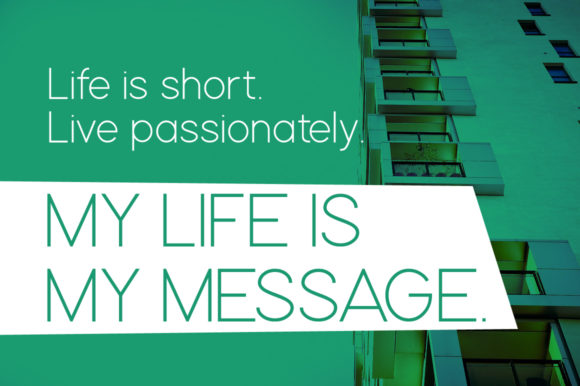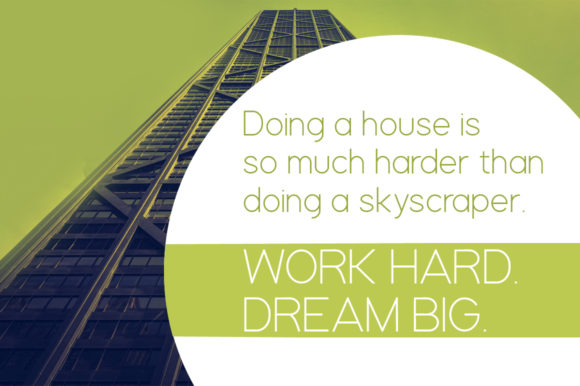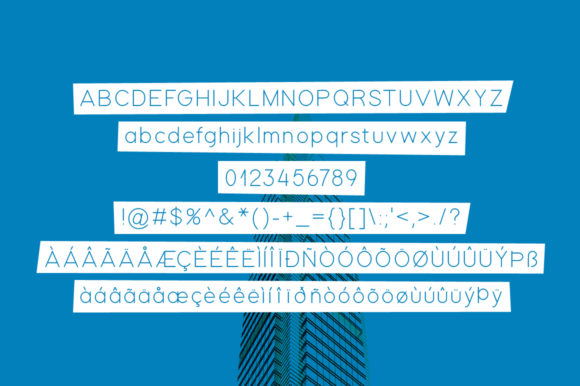
Dreamy Eyes Font: The Ultimate Modern Font for Creative Designs
Are you a designer or crafter looking for a font that can elevate your creative projects to the next level? Look no further than the Dreamy Eyes Font, a brand new modern font that’s perfect for a wide range of applications. In this article, we’ll explore the features and benefits of the Dreamy Eyes Font, and show you how it can be used to create stunning designs.
What is Dreamy Eyes Font?
The Dreamy Eyes Font is a modern font that’s designed to be versatile and easy to use. It’s a brand new font, carefully crafted to meet the needs of designers and crafters who want to create unique and eye-catching designs. With its clean lines, elegant curves, and sophisticated style, the Dreamy Eyes Font is perfect for anyone who wants to add a touch of modernity to their designs.
What Can I Use Dreamy Eyes Font For?
The Dreamy Eyes Font is suitable for a wide range of creative projects, including:
- T-shirts: Create stunning t-shirt designs with the Dreamy Eyes Font that will make your customers stand out.
- Print designs: Use the font for brochures, business cards, and other print materials that require a modern and elegant look.
- Website headers: Add a touch of sophistication to your website headers with the Dreamy Eyes Font.
- Photo frames: Create beautiful photo frames with the Dreamy Eyes Font that will make your memories stand out.
- Flyers: Design eye-catching flyers with the Dreamy Eyes Font that will grab the attention of your target audience.
- Album covers: Use the font to create stunning album covers that will make your music stand out.
- Posters: Create beautiful posters with the Dreamy Eyes Font that will make your message stand out.
- Image sliders: Add a touch of elegance to your image sliders with the Dreamy Eyes Font.
Why Choose Dreamy Eyes Font?
There are many reasons why you should choose the Dreamy Eyes Font for your creative projects. Here are a few:
- Modern and elegant design: The Dreamy Eyes Font has a modern and elegant design that’s perfect for creating sophisticated designs.
- Versatile: The font is versatile and can be used for a wide range of creative projects.
- High-quality: The font is of high quality, with clean lines and elegant curves that will make your designs stand out.
Tips for Using Dreamy Eyes Font
Here are a few tips for using the Dreamy Eyes Font:
- Use it with a contrasting background: Use the Dreamy Eyes Font with a contrasting background to make it stand out.
- Experiment with different sizes: Experiment with different sizes to find the one that works best for your design.
- Pair it with other fonts: Pair the Dreamy Eyes Font with other fonts to create a unique and interesting design.
| Font Name | Dreamy Eyes Font |
| Author | Spanking Fonts |
The Dreamy Eyes Font is a modern and elegant font that’s perfect for designers and crafters who want to create stunning designs. With its versatile design, ease of use, and high-quality lines, the Dreamy Eyes Font is a great addition to any design project. Whether you’re creating t-shirts, print designs, website headers, or any other type of design, the Dreamy Eyes Font is a great choice.